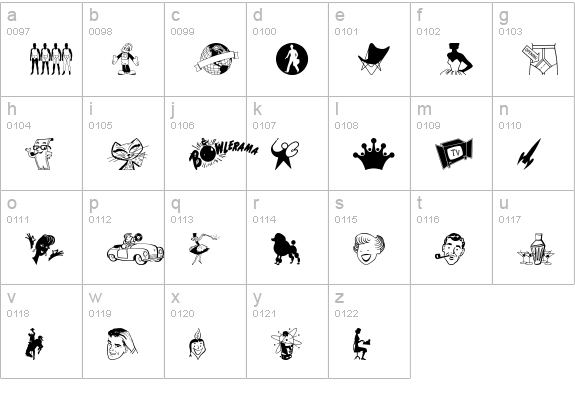
TackODing Dingbat Font Details
Introducing TackODing Dingbat font - a whimsical and captivating typeface that will bring a touch of playfulness to any project. With its unique and eye-catching design, this font is perfect for adding a dash of creativity to invitations, posters, logos, and more. TackODing Dingbat font features a delightful assortment of symbols, icons, and illustrations that will undoubtedly grab attention and spark curiosity. From charming animals to quirky shapes, this font offers a wide range of options to suit various design needs. Whether you're working on a children's book, a website, or simply want to add a fun element to your personal projects, TackODing Dingbat font has got you covered. What makes TackODing Dingbat font even more appealing is that it is absolutely free! Yes, you read that right - this incredible font is freely available to download at FontsMarket.com. It's a wonderful opportunity to explore the unlimited possibilities of this font without any cost. Downloading TackODing Dingbat font is a breeze. Simply visit FontsMarket.com, search for TackODing Dingbat font, and click on the download button. Within seconds, you'll have this delightful font ready to bring joy and creativity to your designs. So, why wait? Unleash your imagination with TackODing Dingbat font, the free font that will make your projects stand out and leave a lasting impression. Download it now at FontsMarket.com and let the fun begin!